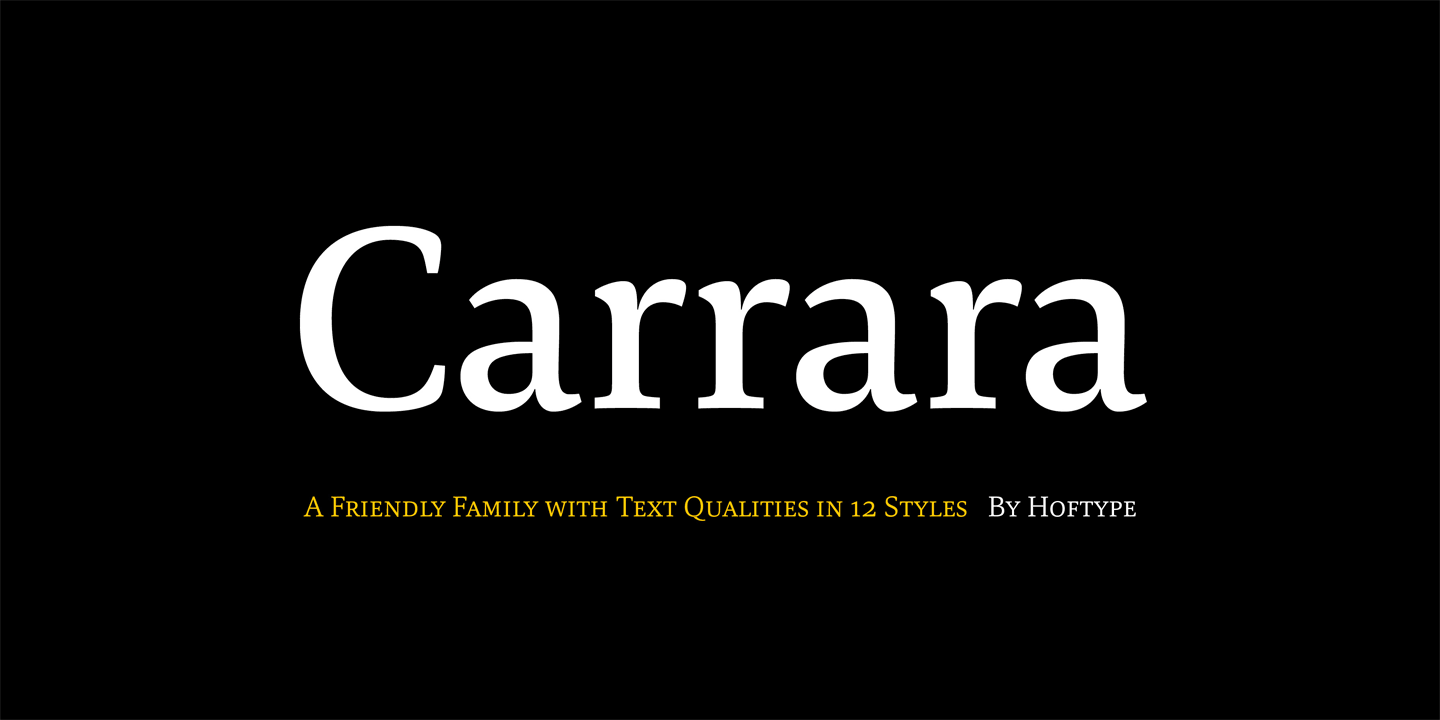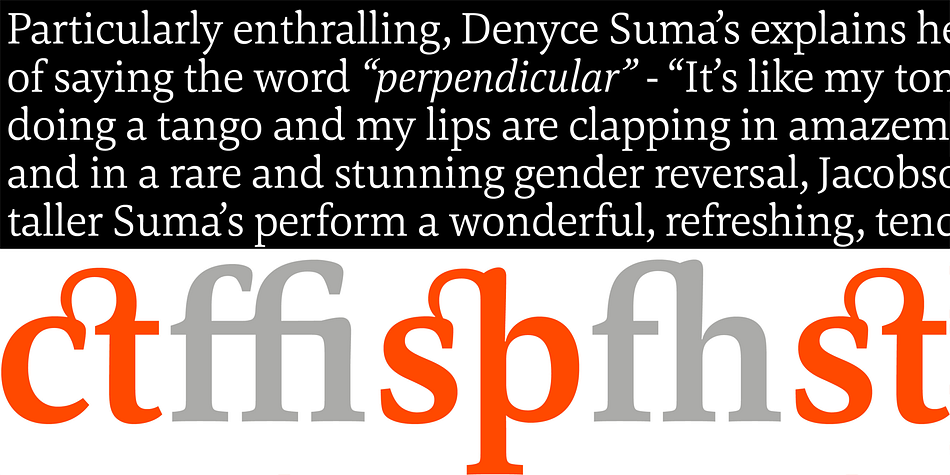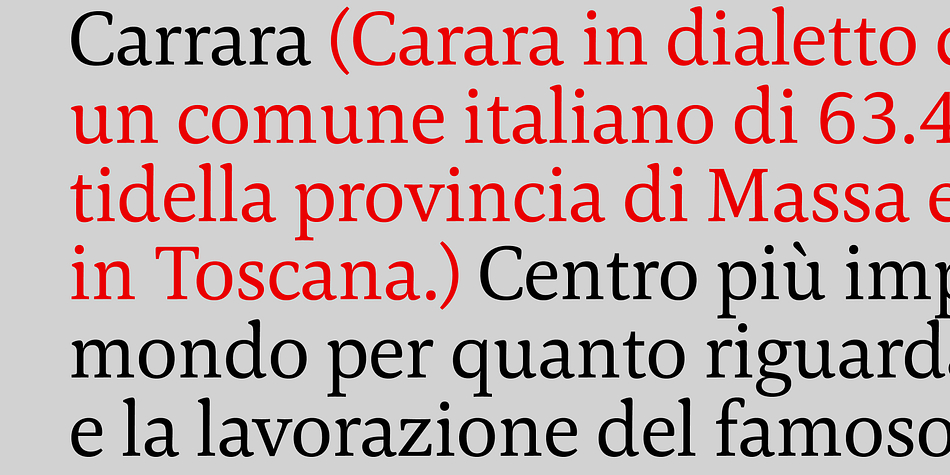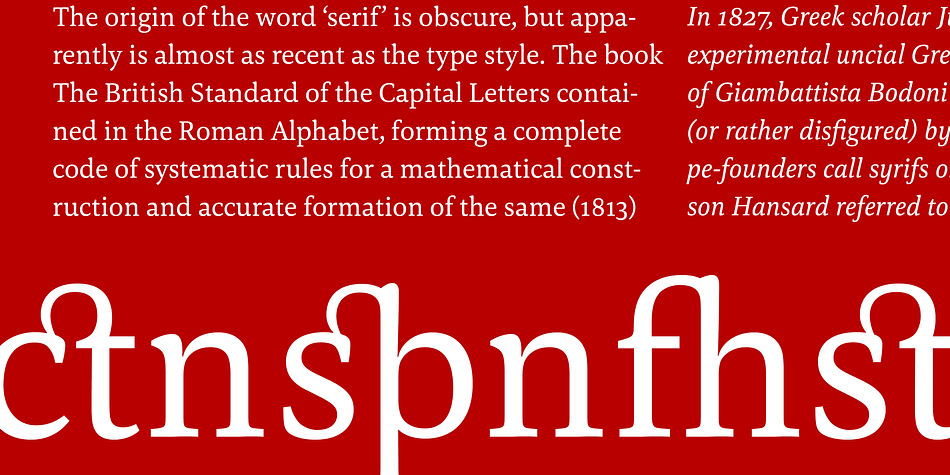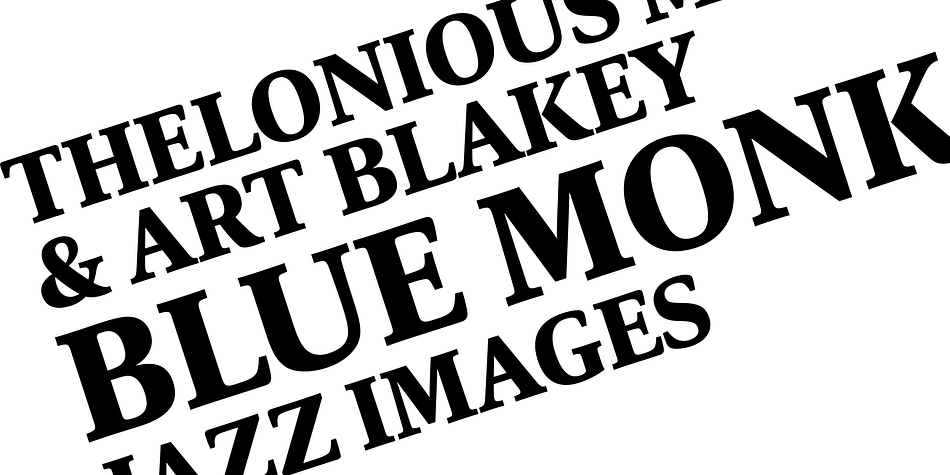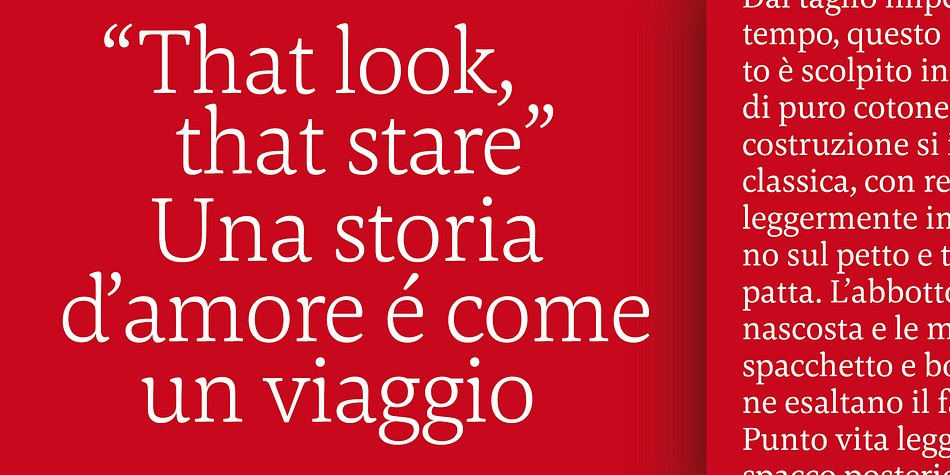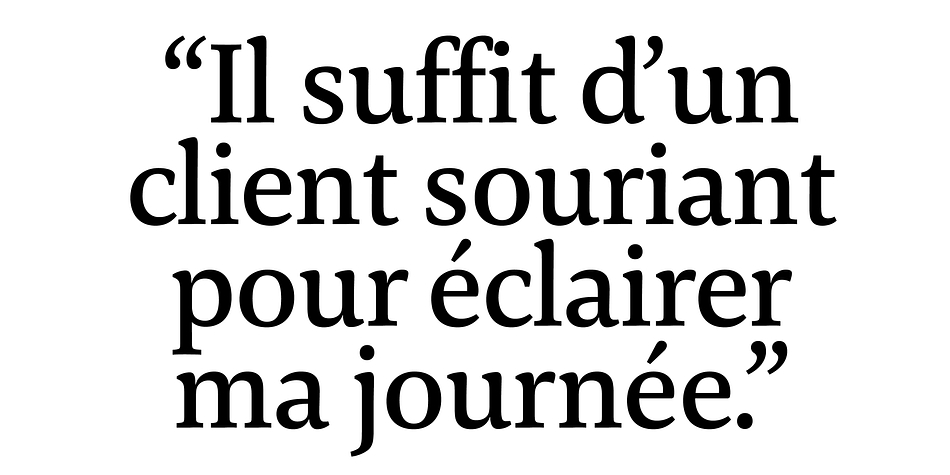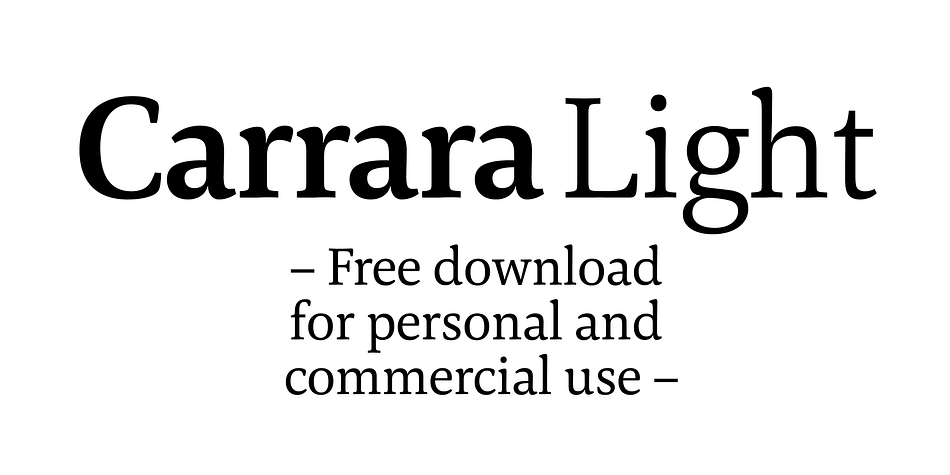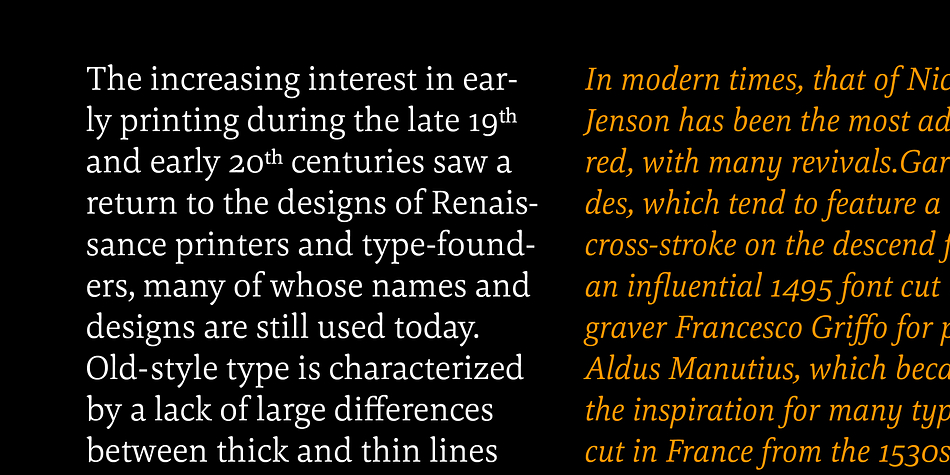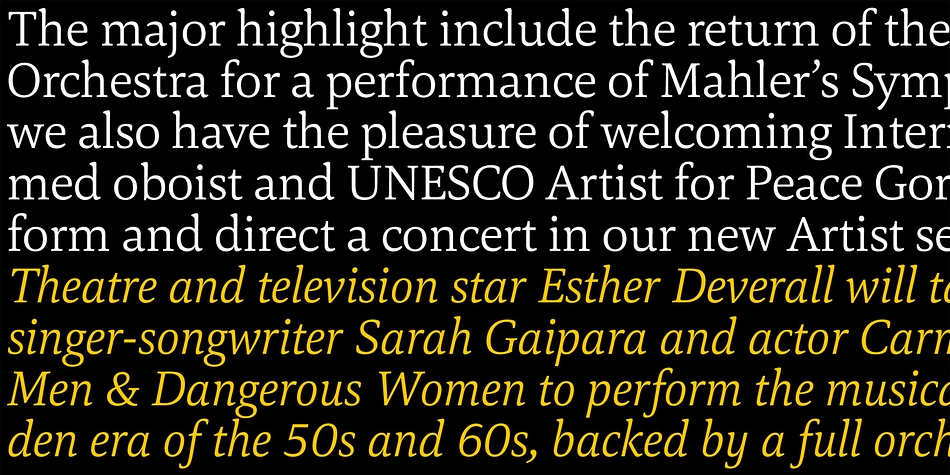
Designed by Dieter Hofrichter, Carrara is a serif font family. This typeface has fourteen styles and was published by Hoftype.
Carrara is a highly readable text face with a loose reference to classical transitional types.
Carrara was designed in 2016 and presents a solid structure which makes it very assertive
in text applications. In headlines it shows the individual details of the forms which gives it a gentle flow and makes for a distinguished and distinct appearance, while avoiding any noisiness.
The Carrara family consists of 12 styles and is well equipped for ambitious typography. It comes in OpenType format with extended language support. All weights contain ligatures, superior characters, proportional lining figures, tabular lining figures, proportional old style figures, lining old style figures, matching currency symbols, fraction- and scientific numerals, matching arrows and alternate characters.